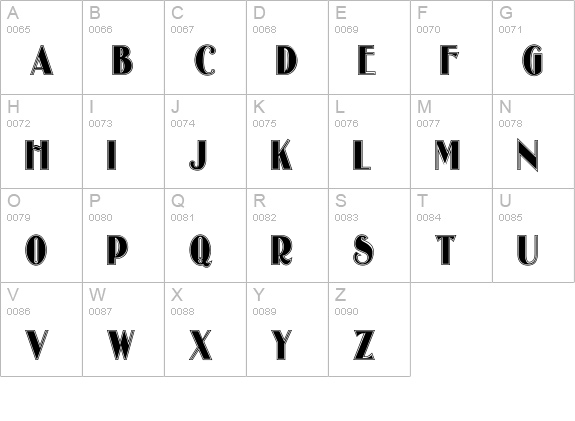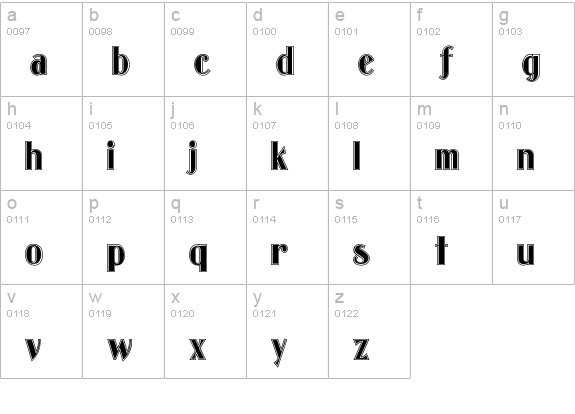
OldgateLaneOutline Font Details
OldgateLaneOutline is a stylish and elegant display font that exudes a timeless charm. Its intricate outlines and delicate curves make it perfect for adding a touch of sophistication to any design project. Whether you're creating a vintage-inspired poster, a classy wedding invitation, or a retro logo, this font will elevate your work to the next level. The best part? OldgateLaneOutline is completely free to download at FontsMarket.com. With just a few clicks, you can add this stunning font to your collection and start using it in your projects right away. Don't miss out on this fantastic opportunity to enhance your designs with the beauty and grace of OldgateLaneOutline.